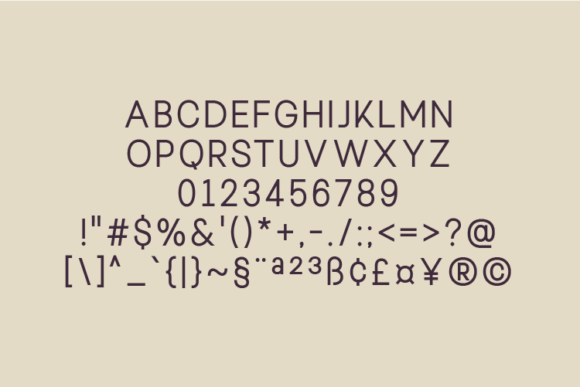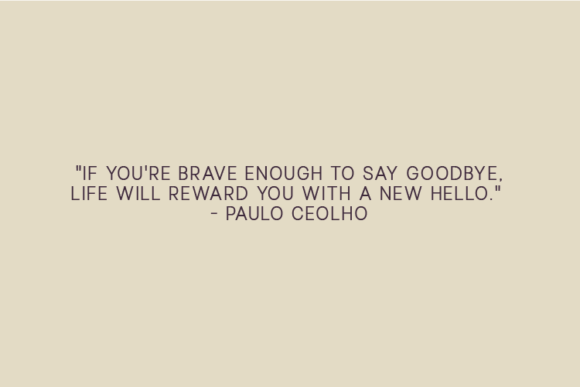
Introduction to Nouveau Font
Have you ever been working on a creative project, pouring your heart and soul into it, only to realize that the perfect font is missing? That’s where the Nouveau Font comes in – a stunning sans serif that will elevate your designs to the next level. With its high-quality design and transparent background, this font is a game-changer for designers looking to add a touch of sophistication to their work.
Whether you’re working on a logo, invitation, or header, the Nouveau Font is the perfect design resource to complement your project. Its versatility and beauty make it a valuable asset for any designer, and the best part? It’s available for free download, making it accessible to creatives of all levels.
As a designer, you know how crucial it is to have a reliable font to fall back on. The Nouveau Font is that reliable partner, providing a clean and elegant look that will enhance any project you work on.
Key Features of Nouveau Font
- High-quality design resource suitable for creative projects, offering a modern aesthetic and elegant feel.
- Includes a transparent background, allowing for seamless integration into designs and reducing the risk of unwanted backgrounds.
- Supports a wide range of languages, making it a versatile choice for global design projects.
- Features a clean and minimalist design, with a focus on simplicity and readability, making it ideal for use in logos, branding, and typography.
Honest Review: Nouveau Font
I recently stumbled upon the Nouveau Font, and I must say it’s a game-changer for any design project. As a designer, I’m always on the lookout for high-quality fonts that can elevate my creative project.
The Nouveau Font is a free download that offers a wide range of styles and weights, making it a versatile design resource. What I love most about this font is its clean and modern aesthetic, which works perfectly for any contemporary design. ✨
Here are some of the features that I particularly appreciate:
- Transparent background, making it easy to use in any design scenario.
- High-quality vector format, ensuring crisp and clear typography.
- Customizable styles and weights, giving me the flexibility to adapt it to any project.
While the Nouveau Font is an excellent choice for most design projects, there are a few limitations to consider. For example, it may not be the best option for projects that require a more traditional or vintage look. ⚠️
Overall, I’m thoroughly impressed with the Nouveau Font, and I would highly recommend it to any designer looking for a high-quality and versatile font. It’s a fantastic addition to any design resource library, and I’m excited to see how it will enhance my future creative projects.
Tips for Getting the Most Out of Nouveau Font
For best results, use Nouveau Font in conjunction with other high-quality design resources. Experiment with different font sizes, colors, and combinations to create a unique look.
Nouveau Font is ideal for creative projects such as:
1. Brochures and flyers
2. Business cards and letterheads
3. Social media graphics and ads
4. Web design and development
Is the Nouveau Font suitable for print and digital use?
Yes, the Nouveau Font is designed to be highly legible and versatile, making it suitable for both print and digital use. Whether you’re creating a brochure, business card, or digital graphic, the Nouveau Font will provide a clear and professional appearance. Its transparent background also makes it easy to integrate with other design elements.